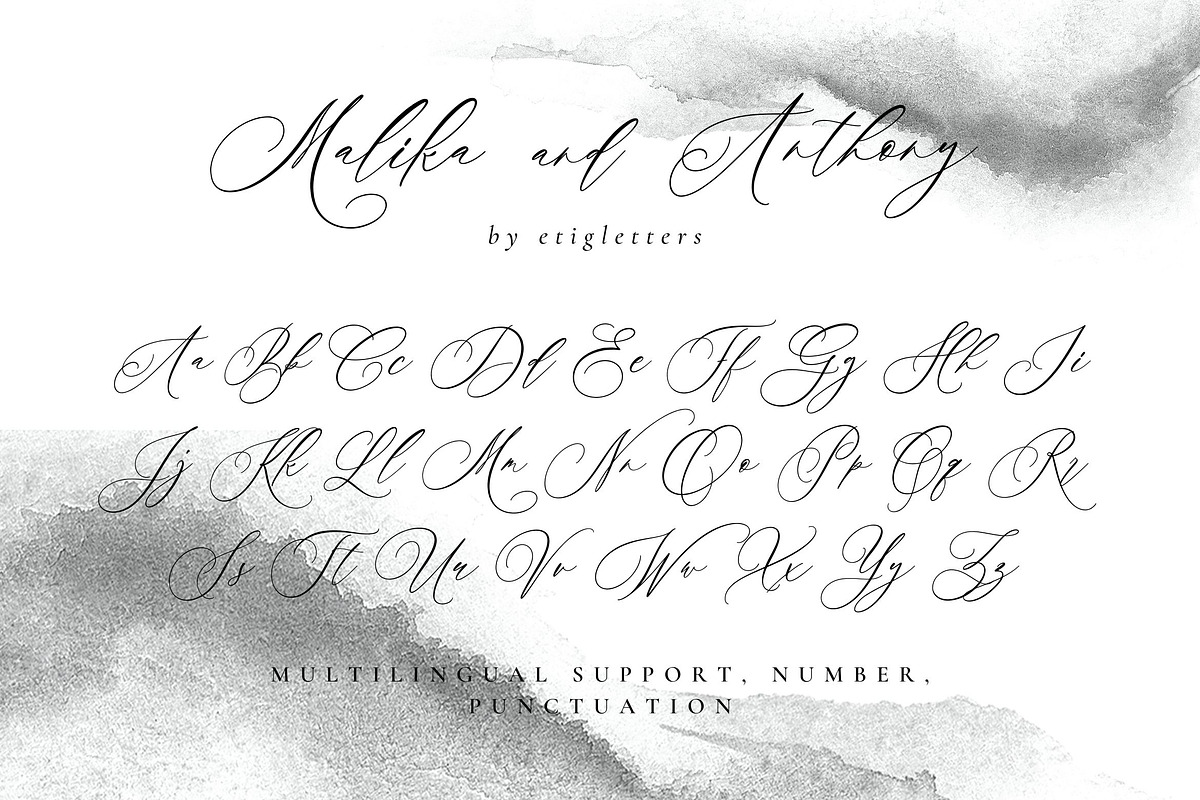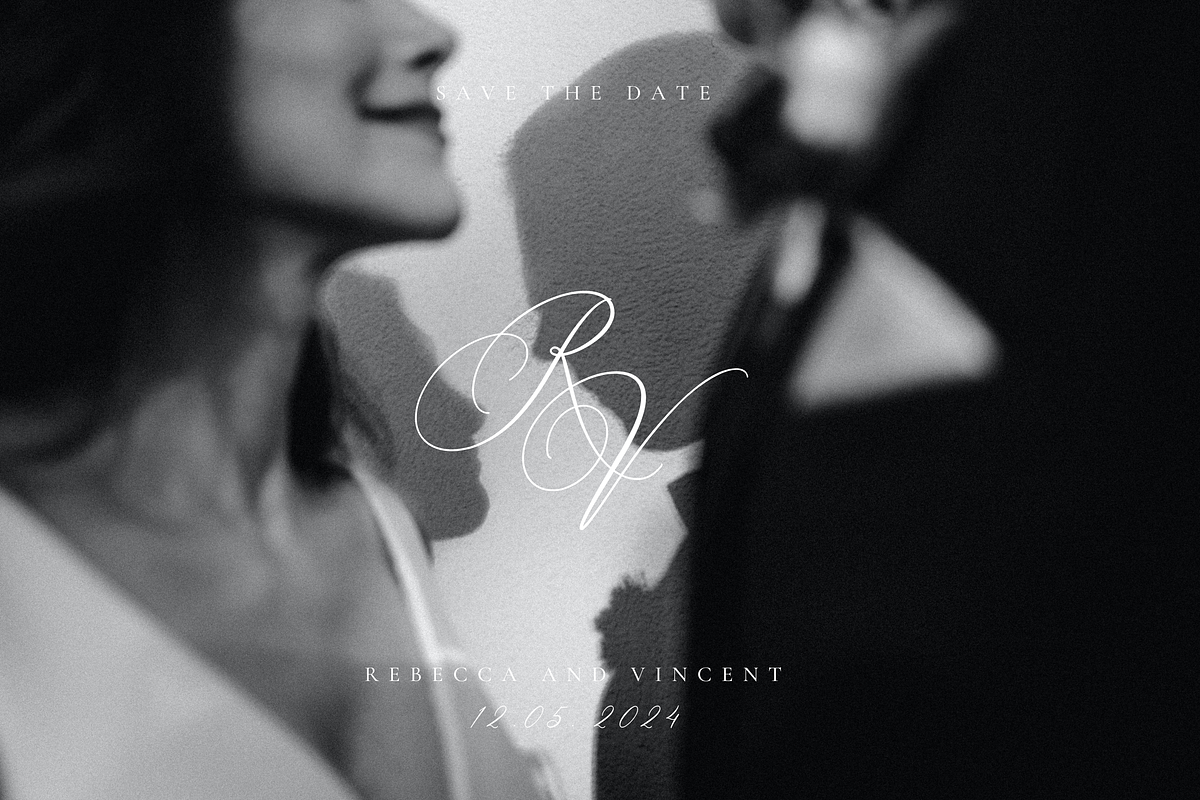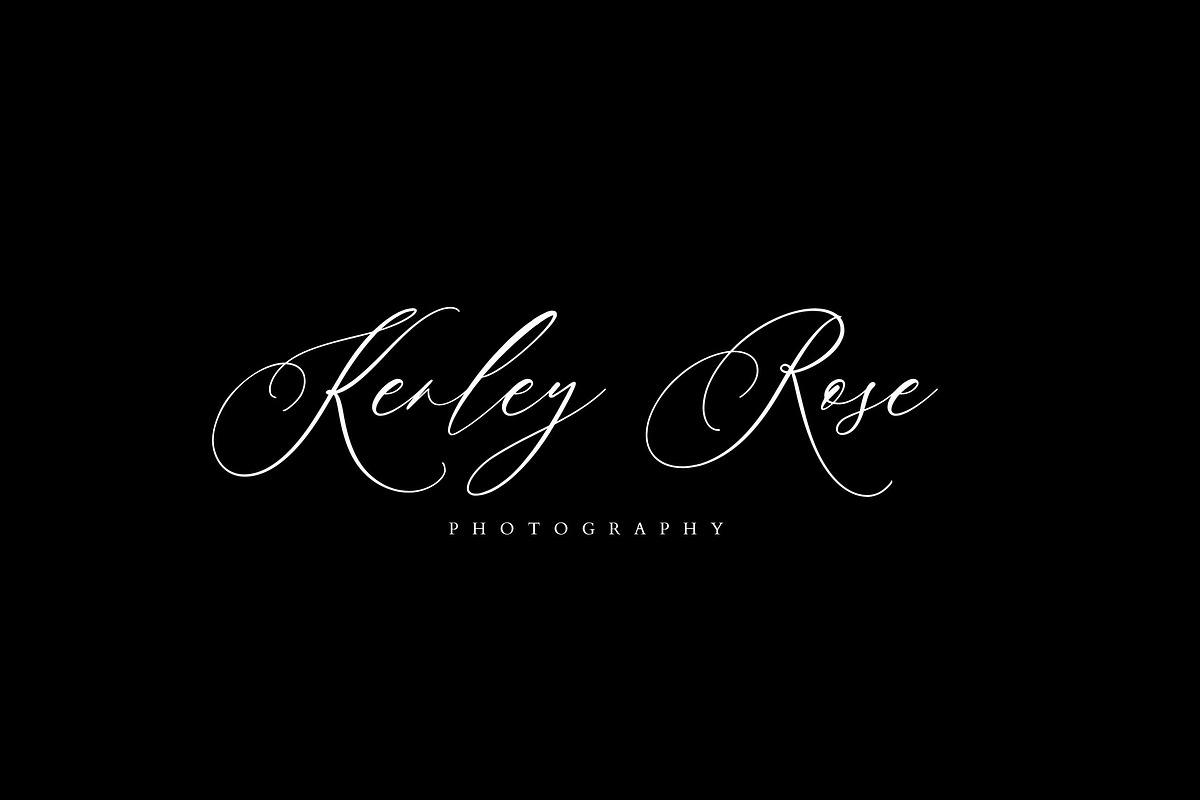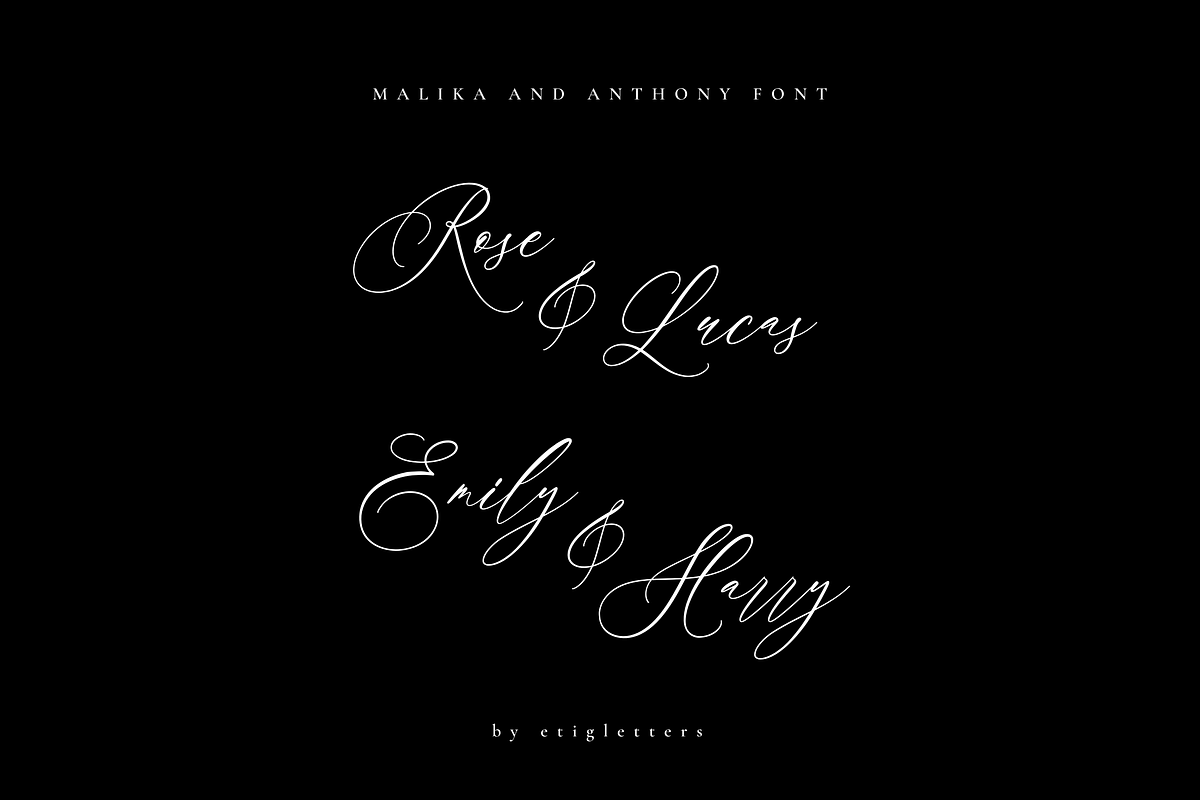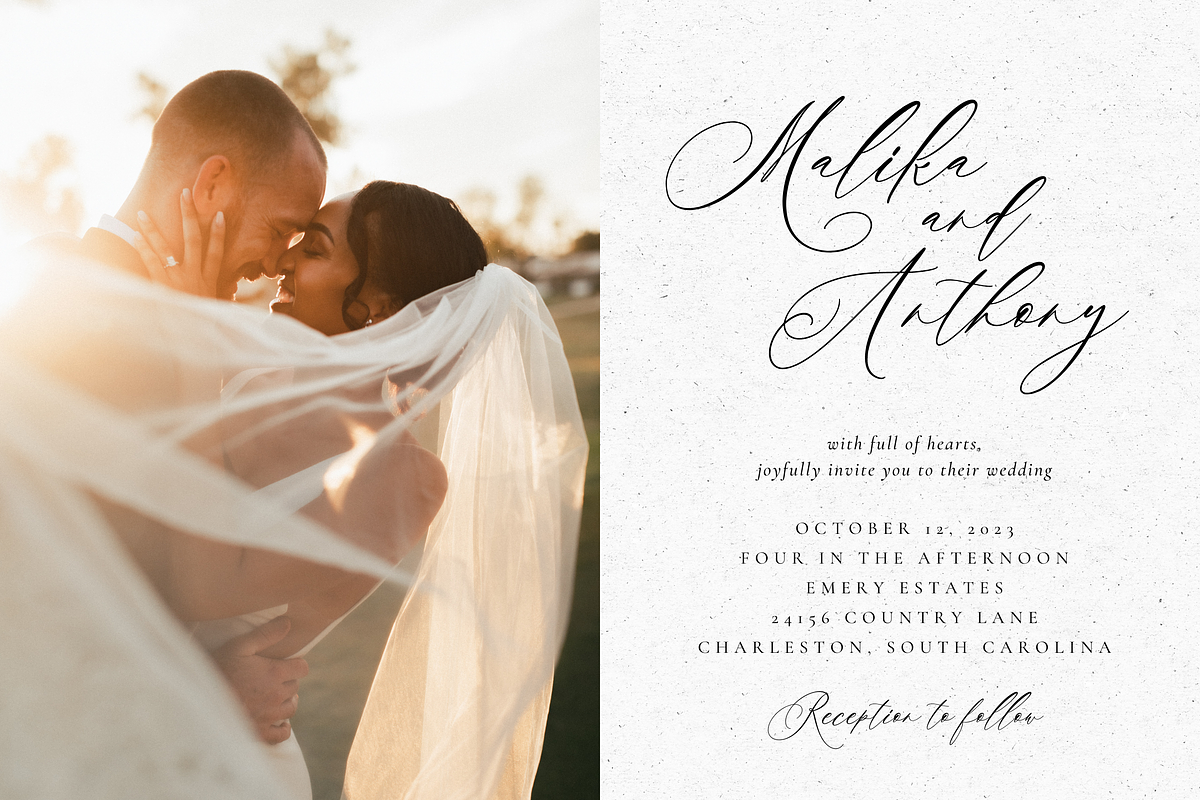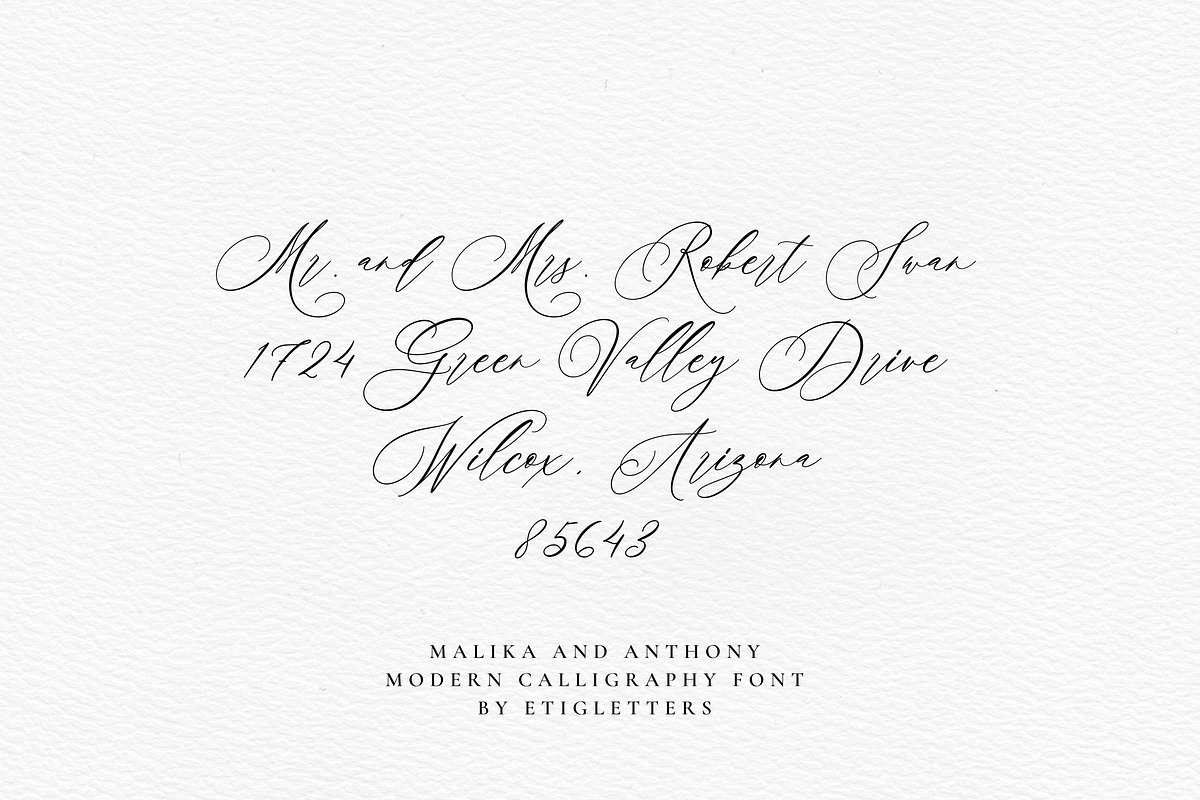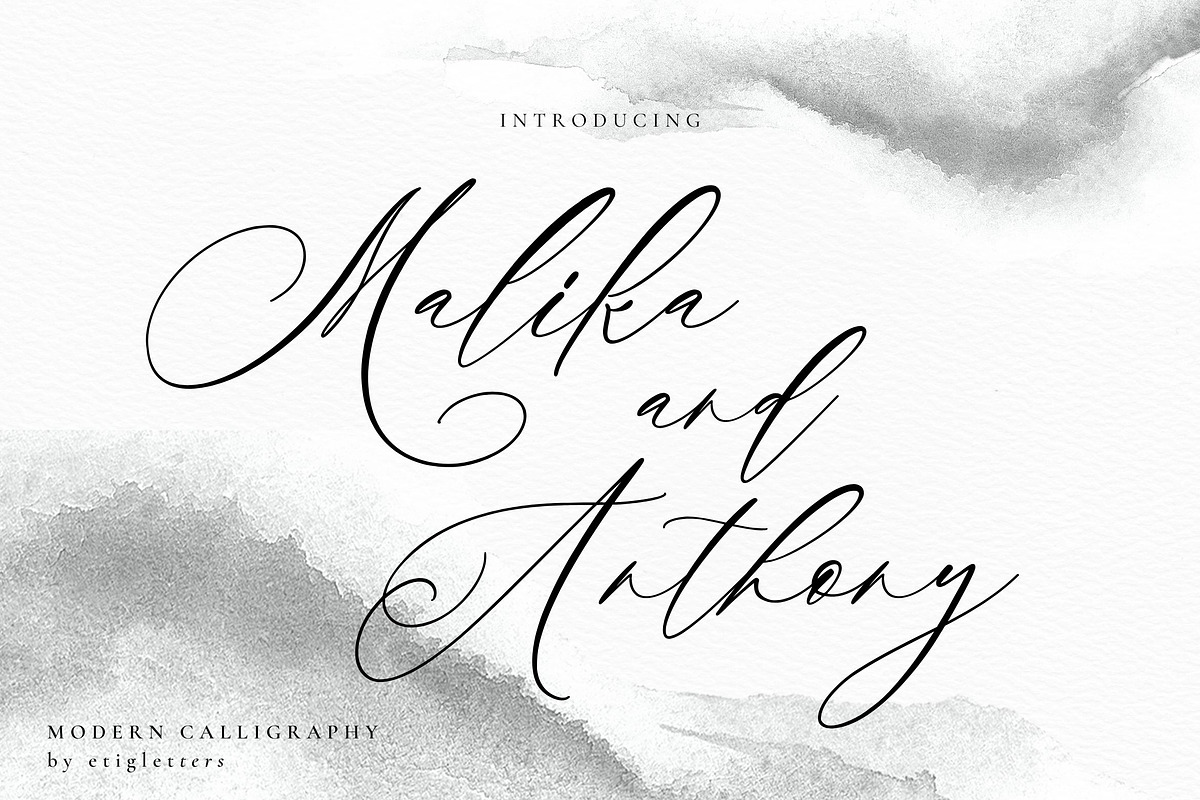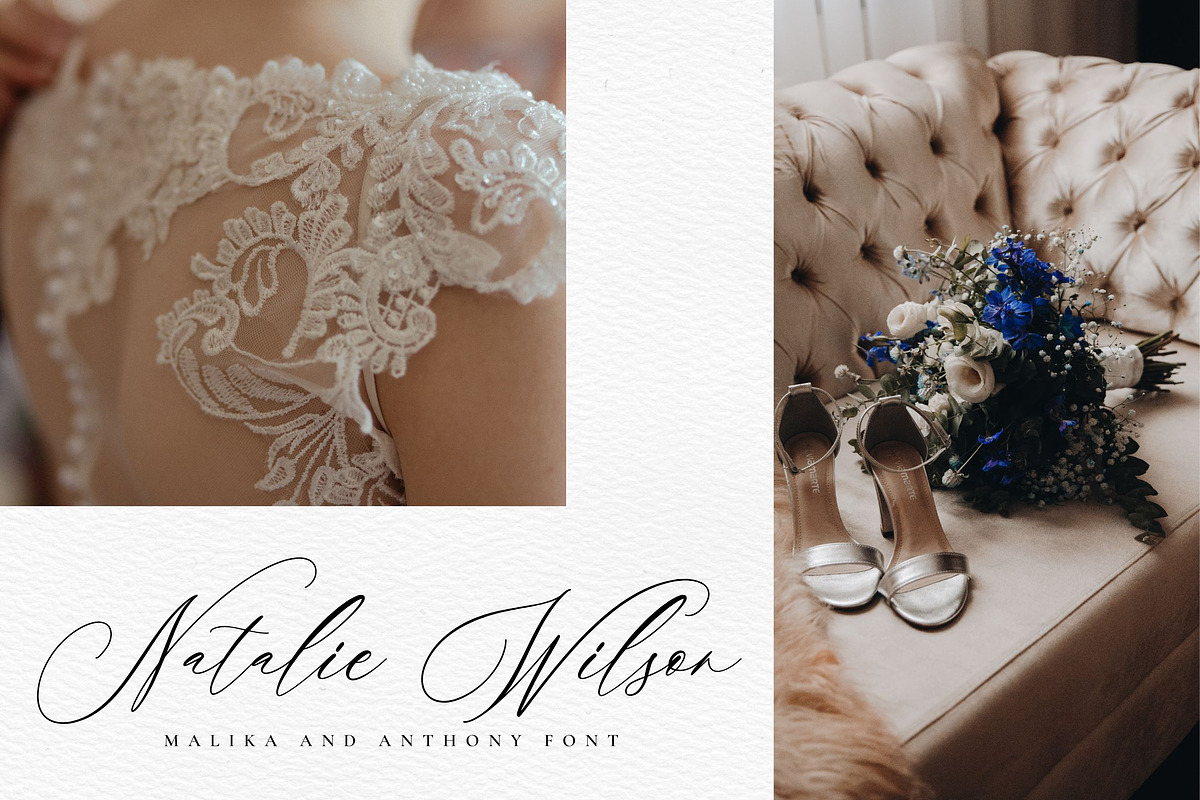
Malika and Anthony ModernCalligraphy
Introducing, Malika and Anthony - is a light, lovely and modern calligraphy font with sophisticated flows. This beautiful script particularly well suited for wedding invitations, save the date cards and feminine branding.
This font also suitable to be combined with san serif that will make your design more perfect. Also already PUA Encoded!